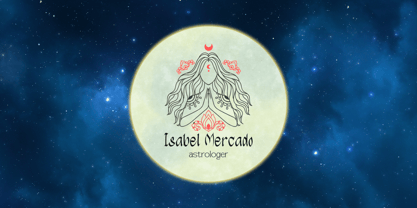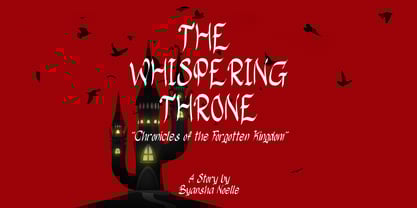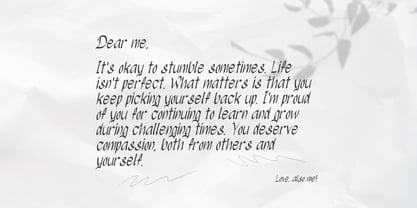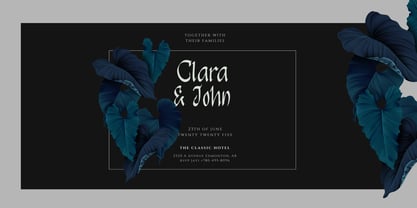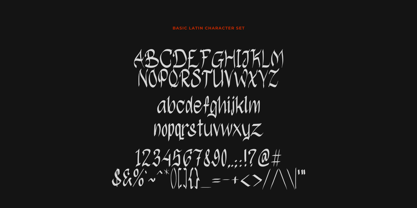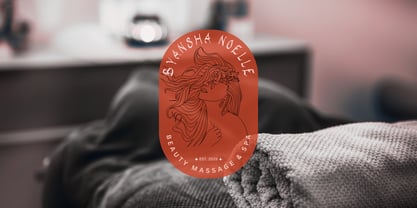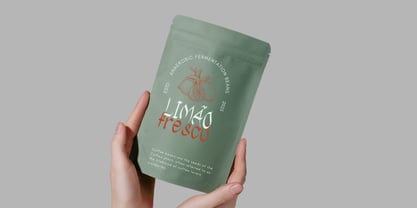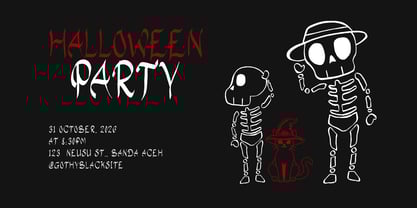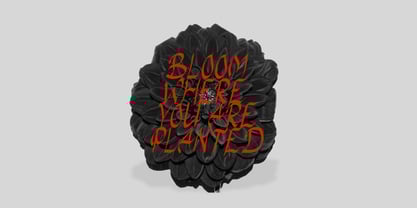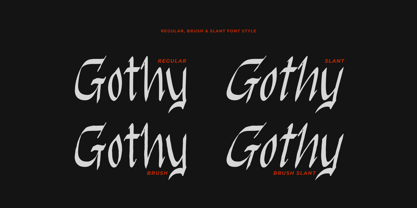
Gothy Black
Gothy Black – A Simple, Modern Blackletter Font
Gothy Black is a stylish blend of tradition and modernity. Inspired by classic blackletter fonts, it features a sleek and simplified design, making it more readable while maintaining its bold, gothic character. The sharp yet clean lines give it a strong and elegant look, perfect for those who want a touch of vintage charm with a modern twist. This Gothy Black comes with 4 style : regular, brush, regular slant, and brush slant.
This font is ideal for:
• Logos & Branding – Perfect for edgy, bold brand identities.
• Posters & Headlines – Creates a striking visual impact.
• T-shirt & Merchandise – Adds a cool, gothic vibe to apparel.
• Book Covers & Magazines – Great for horror, fantasy, or historical themes.
• Social Media & Digital Designs.
Whether you’re designing something dark and mysterious or just want a stylish, unique typeface, Gothy Black is the perfect choice.